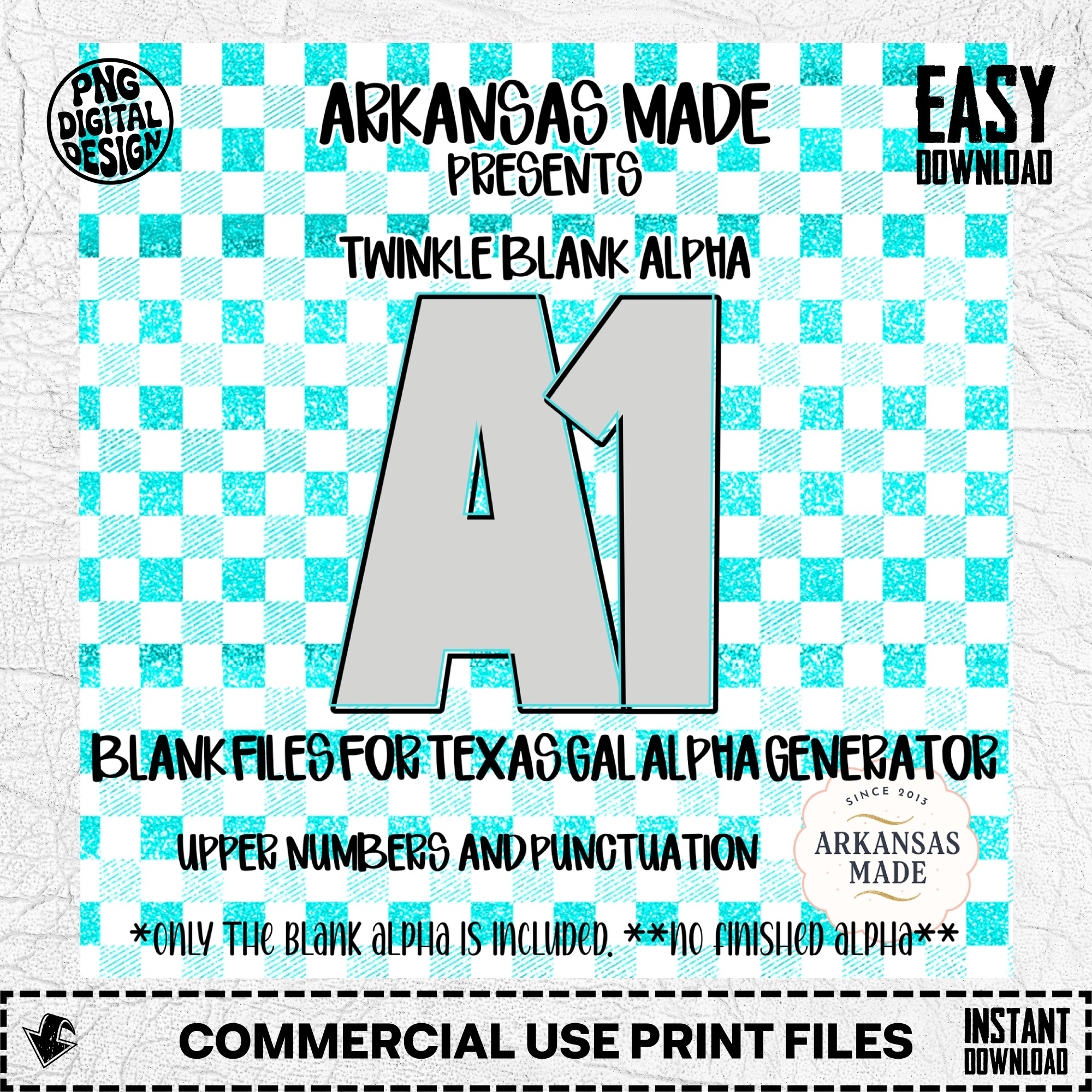
Create stunning custom designs with this versatile blank fillable alpha set, including letters, numbers, and punctuation in a sparkle outline style. Perfect digital files for crafters! Unleash your creativity with this unique digital download. Featuring a playful twinkle outline effect, these transparent PNG files are ideal for sublimation, screen printing, or any DIY project where you need custom, fillable letters and numbers. Tailored for crafters, designers, and small business owners, this set provides the perfect foundation for personalized gifts, apparel, and home decor, allowing you to add your own patterns or textures. Elevate your creative projects today!